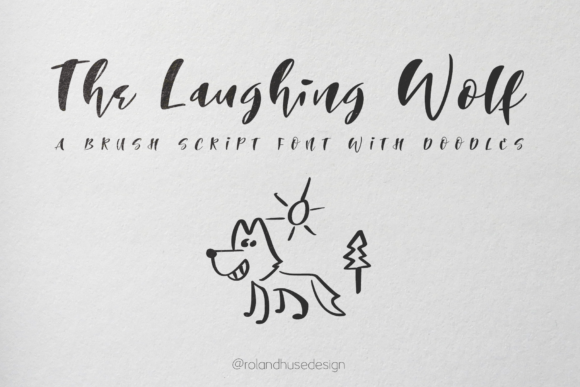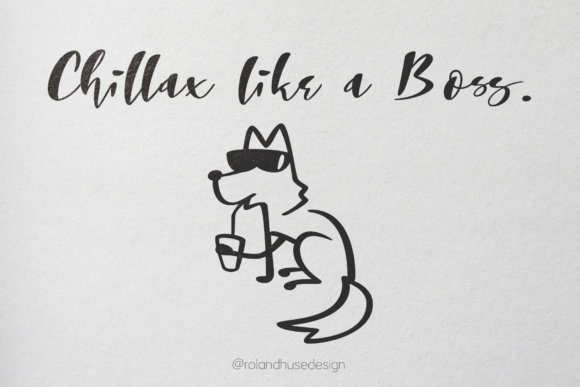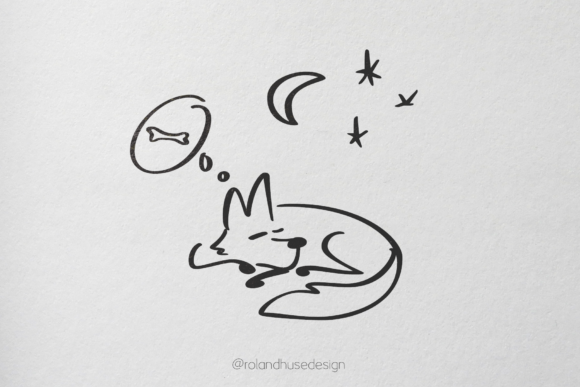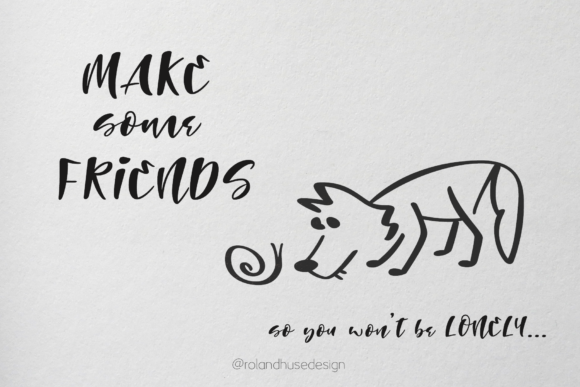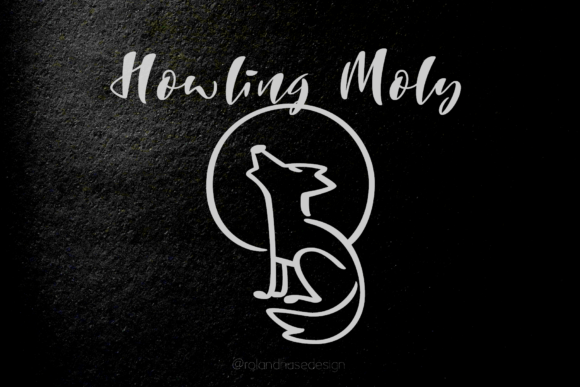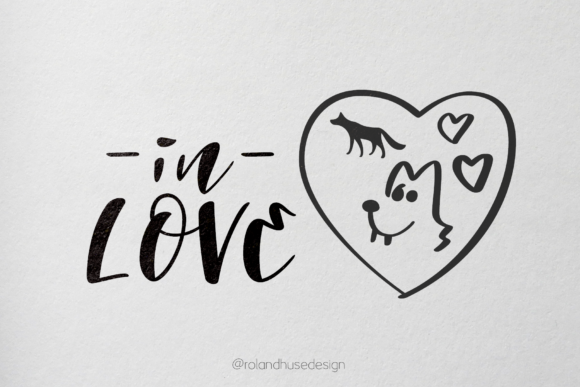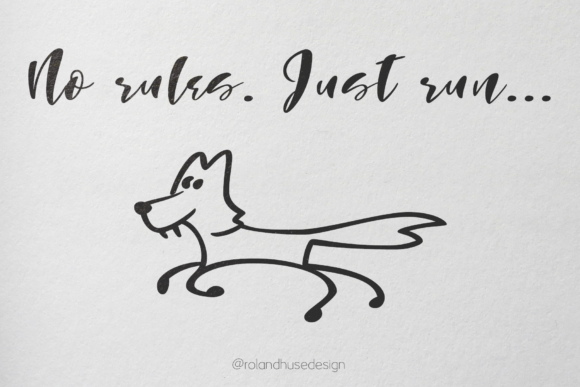
The Laughing Wolf Font
About The Laughing Wolf Font
The Laughing Wolf is a brush script created for Ipas. Carefully designed with clean vectors.
There are 7 Wolf doodles included in place of the bulletpoint characters and it’s stylistic set